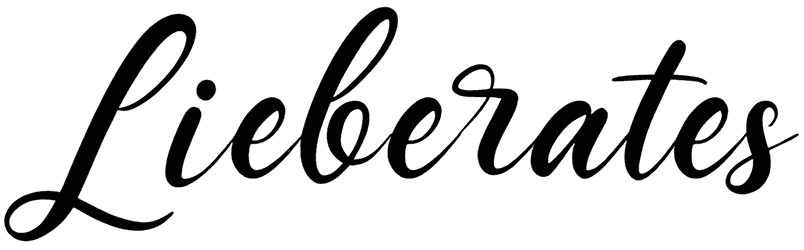
Lieberates Font
There is nothing better than a calligraphy font for giving off such an aesthetic, natural feel with high skill. Liberates features a complete set of beautiful characters that help you bring your creative imagination to reality without being troubled.
The flexible, thick, italic lines leave an impeccable view and a deep impression. Adopt it for crafting a perfect project; apparel prints, book covers, holiday concepts, branding material, and advertisements are examples of what this font goes well with.